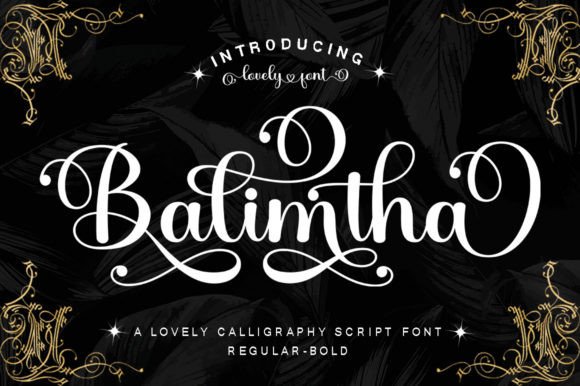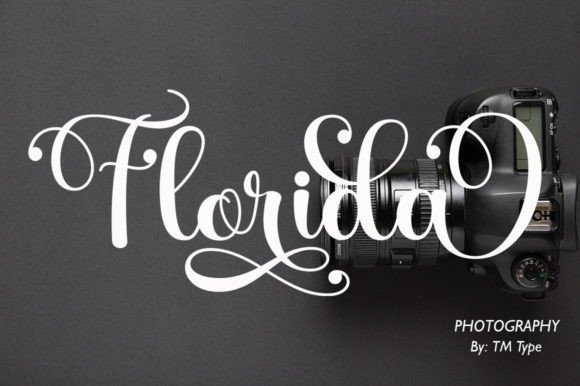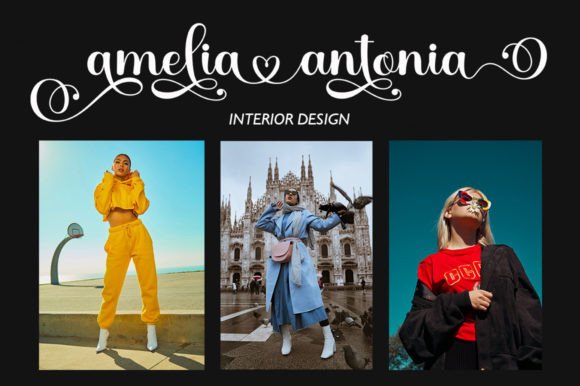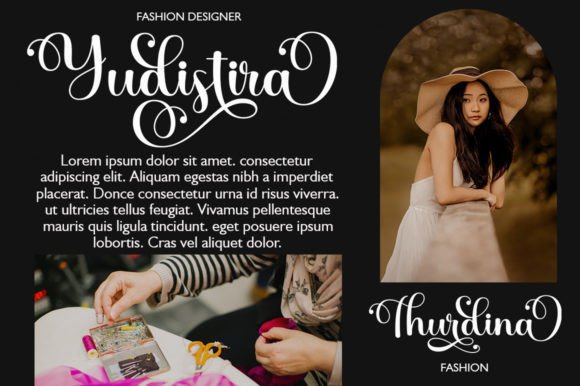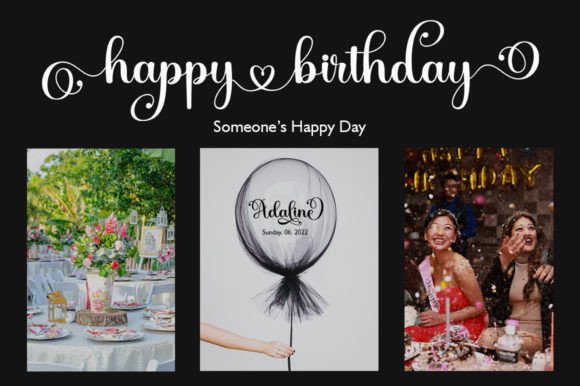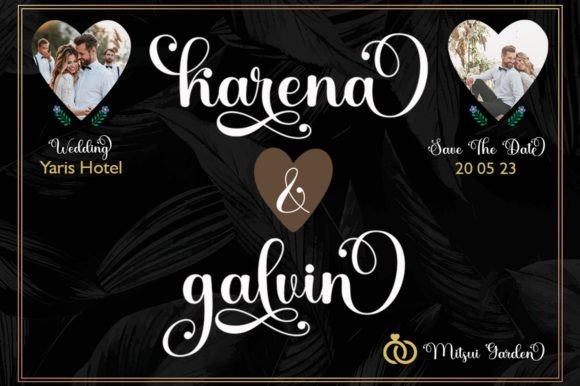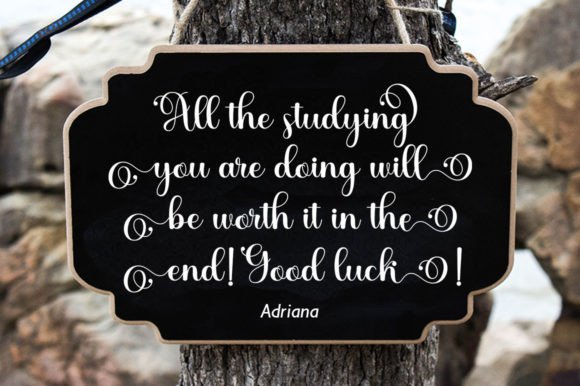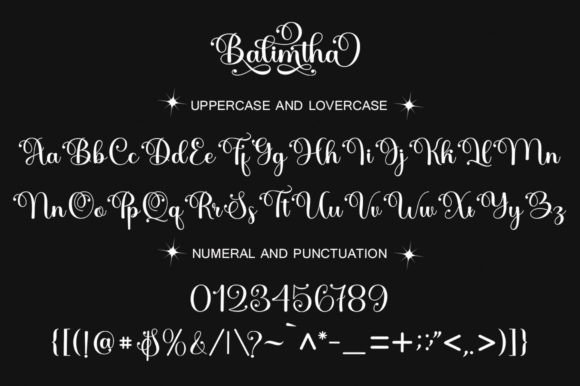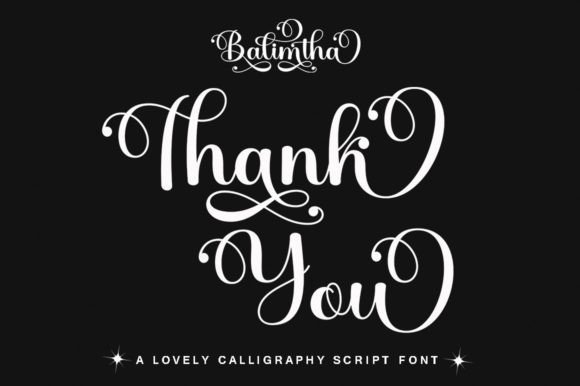
Balimtha Font
About Balimtha Font
Balimtha is a captivating and sweet calligraphy typeface, where characters gracefully dance along the baseline, adding a romantic and luxurious touch to any design project. This font is not just a typeface; it’s an artful addition to your creative toolkit that brings a special charm and elegance to your creations. With its PUA encoding, accessing a variety of amazing glyphs and ligatures is made effortless, allowing you to infuse your designs with unique and customized elements.
The romantic essence of Balimtha is evident in its calligraphy style, where each stroke is carefully crafted to convey a sense of sweetness and luxury. The characters seamlessly flow along the baseline, creating an aesthetic that is both visually pleasing and emotionally engaging.
Balimtha becomes a key element in projects where a touch of romance and luxury is desired. Whether you’re working on wedding invitations, branding materials, or any design that calls for a sophisticated and romantic vibe, this calligraphy typeface proves to be a standout choice.
The PUA encoding feature enhances the font’s versatility, enabling easy access to a variety of glyphs and ligatures. This flexibility empowers designers to personalize and customize their designs, ensuring that each project reflects a unique and artistic touch.
Incorporate Balimtha into your design projects to experience the romantic and sweet charm it brings. Let it be the typeface that adds a luxurious spark to your creations, creating a visual language that speaks of elegance and sophistication. Balimtha is not just a font; it’s a creative tool that elevates your designs to a realm of timeless beauty and romance.